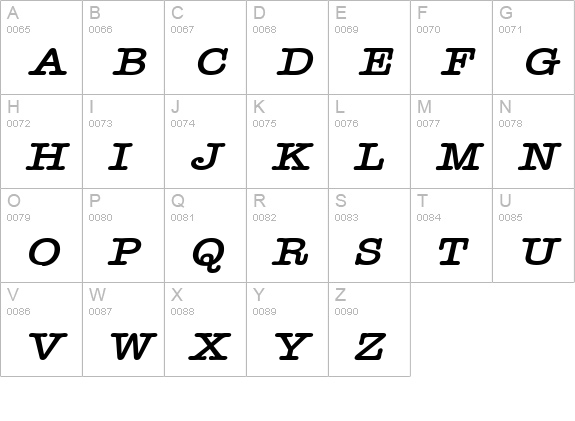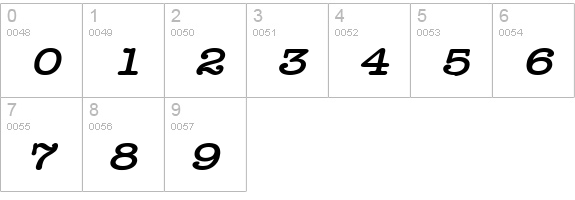
Headline Wide BoldItalic is a distinctive, extended-width variant in the Headline typeface family \xE2\x80\x94 well suited to design and typography projects.
Introducing the captivating Headline Wide BoldItalic font, a stunning choice for all your design needs. This unique typeface combines boldness and elegance, making it perfect for eye-catching headlines, titles, and prominent text elements. Its wide and bold characters command attention and effortlessly capture the essence of any message. With its distinctive italic styling, Headline Wide BoldItalic font adds a touch of sophistication and modernity to your designs. Whether you're designing a magazine cover, a website banner, or a promotional poster, this font will make your content stand out from the crowd. What makes Headline Wide BoldItalic even more enticing is that it is available for free. Yes, that's right! You can freely download this remarkable font at FontsMarket.com, a trusted source for high-quality fonts. Enhance your creative projects without breaking the bank by taking advantage of this fantastic offer. With its seamless legibility and unique design, Headline Wide BoldItalic font is a versatile choice that can be used across various design styles and themes. From fashion to technology, from food to travel, this font will effortlessly adapt to your creative vision. So why wait? Download the Headline Wide BoldItalic font today and take your designs to new heights. Let your creativity flow and make a lasting impression with this captivating and freely available font.